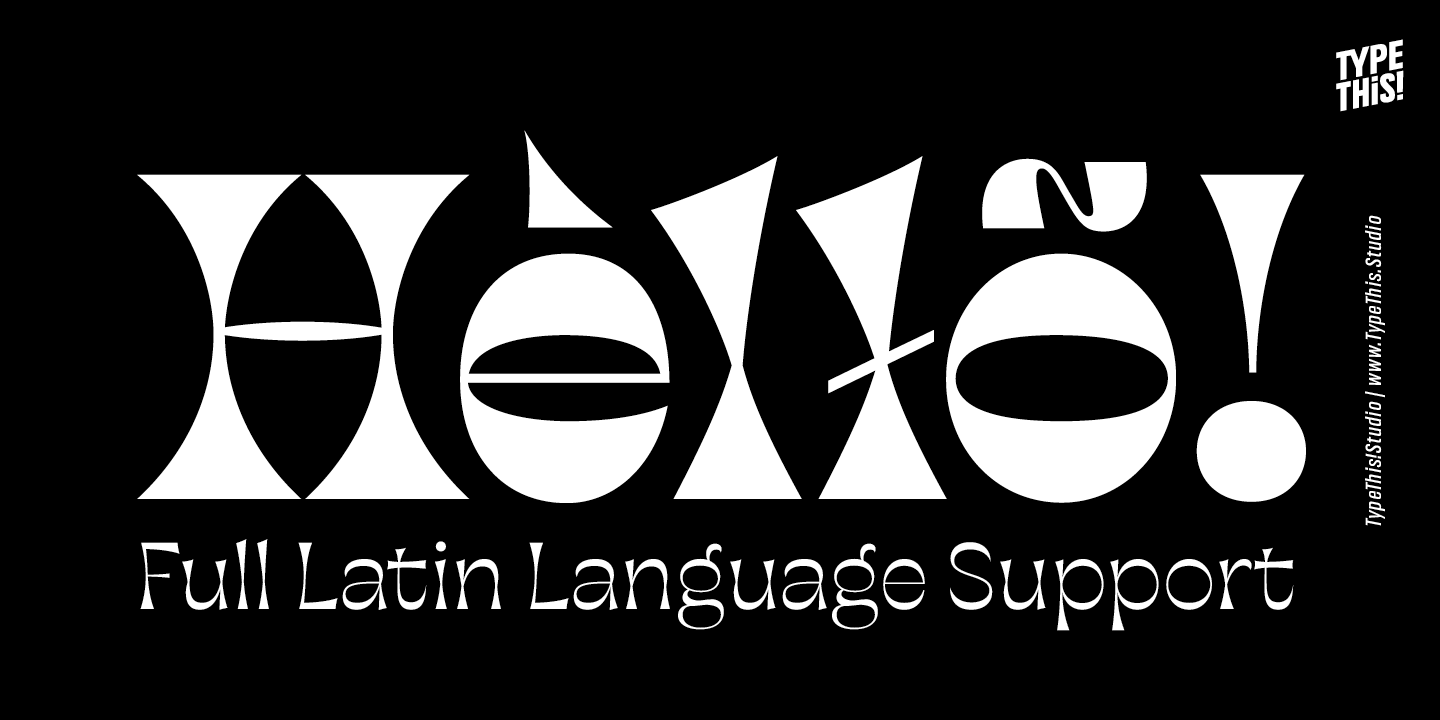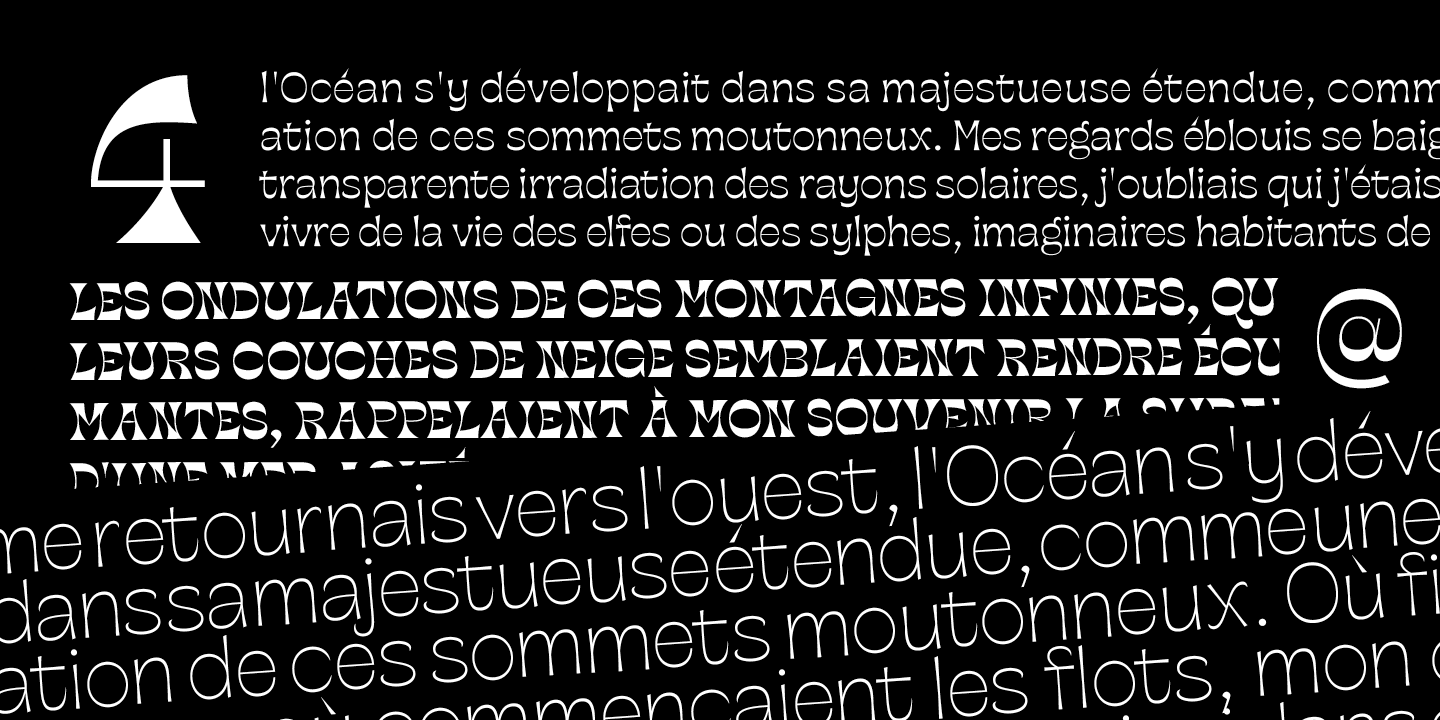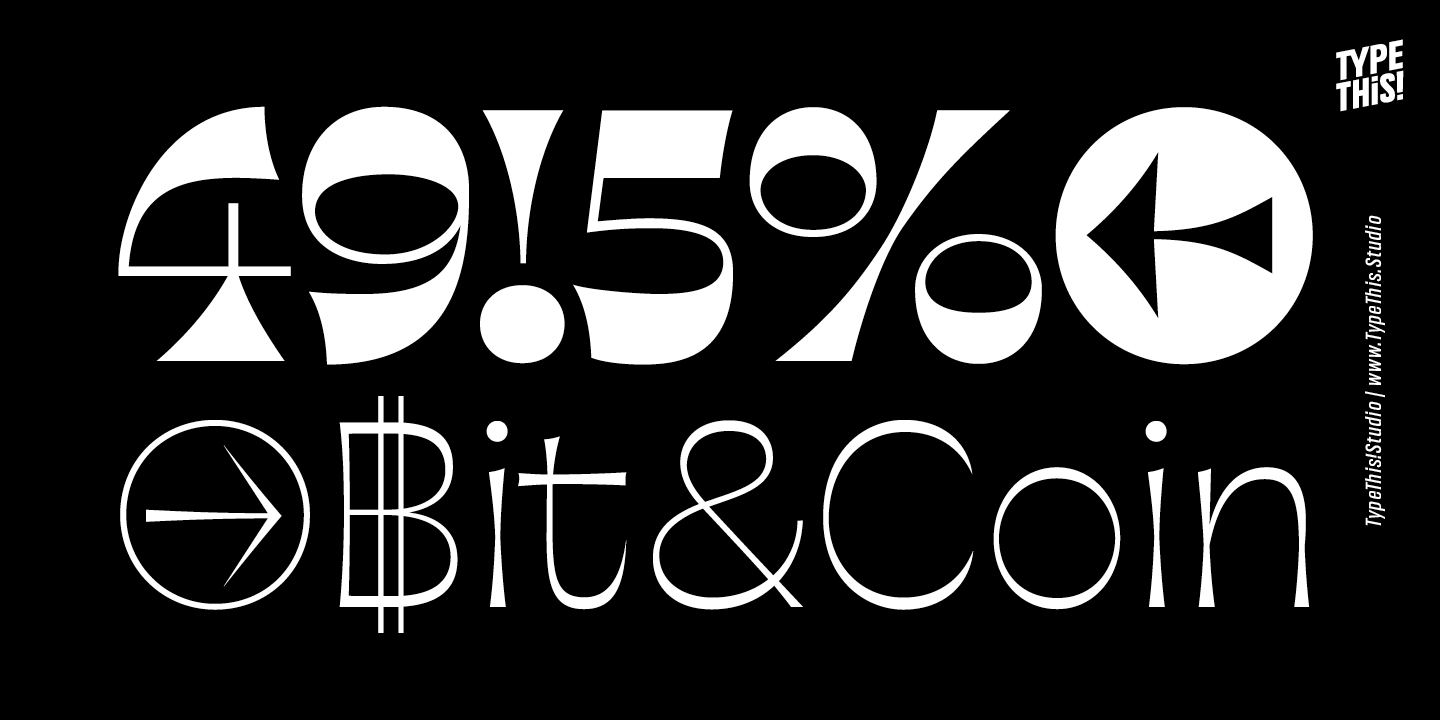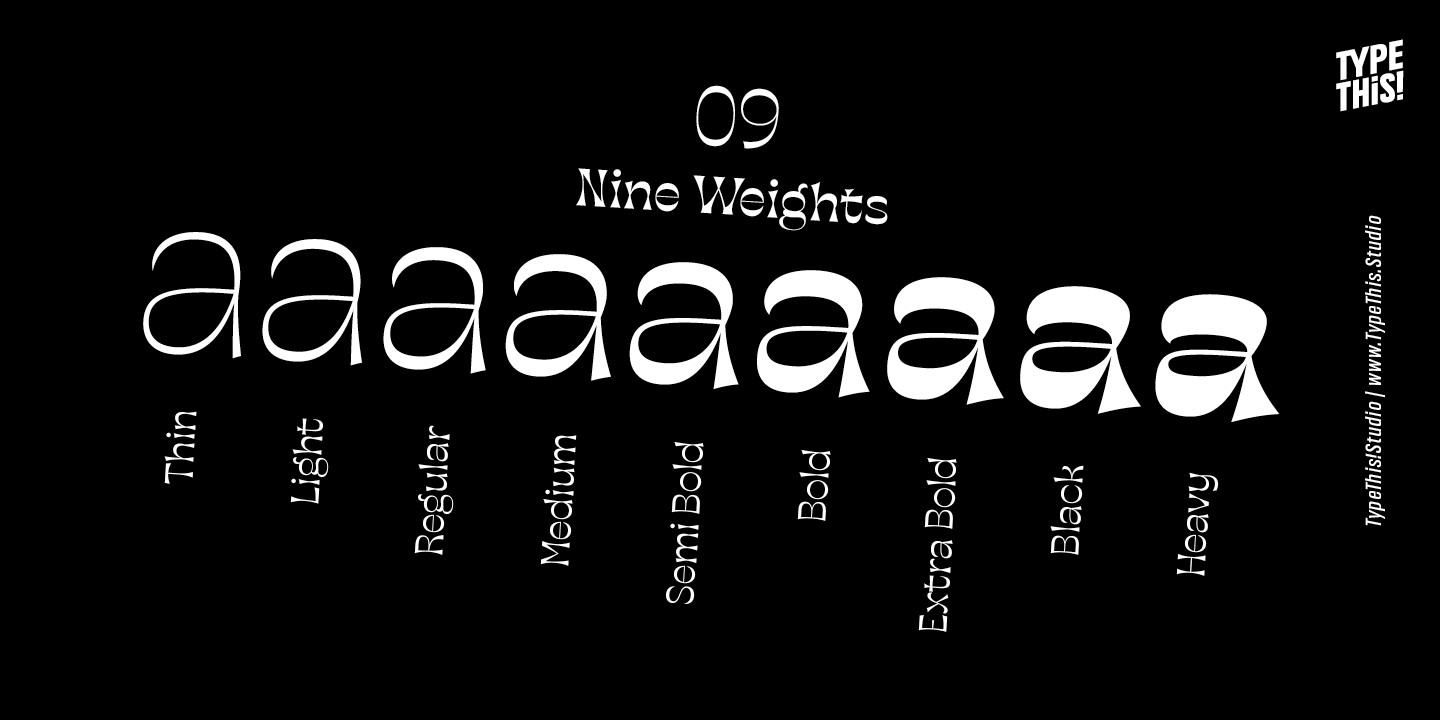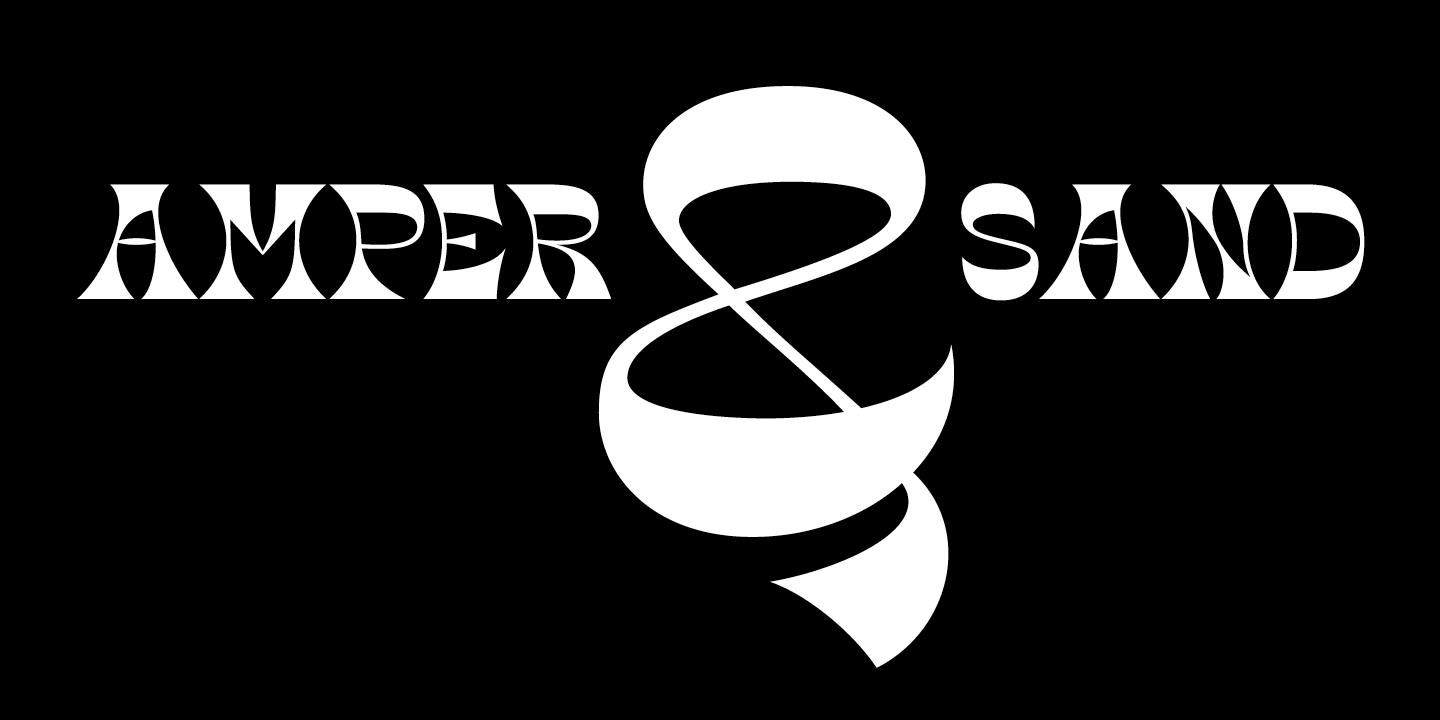
About Horizona
Introducing an all-new typeface from TypeThis!Studio, Horizona! This expressive font comes in nine different weights to grab everyone\’s attention. The range encompasses black weight to thin for striking headings and display typography. Horizona includes…